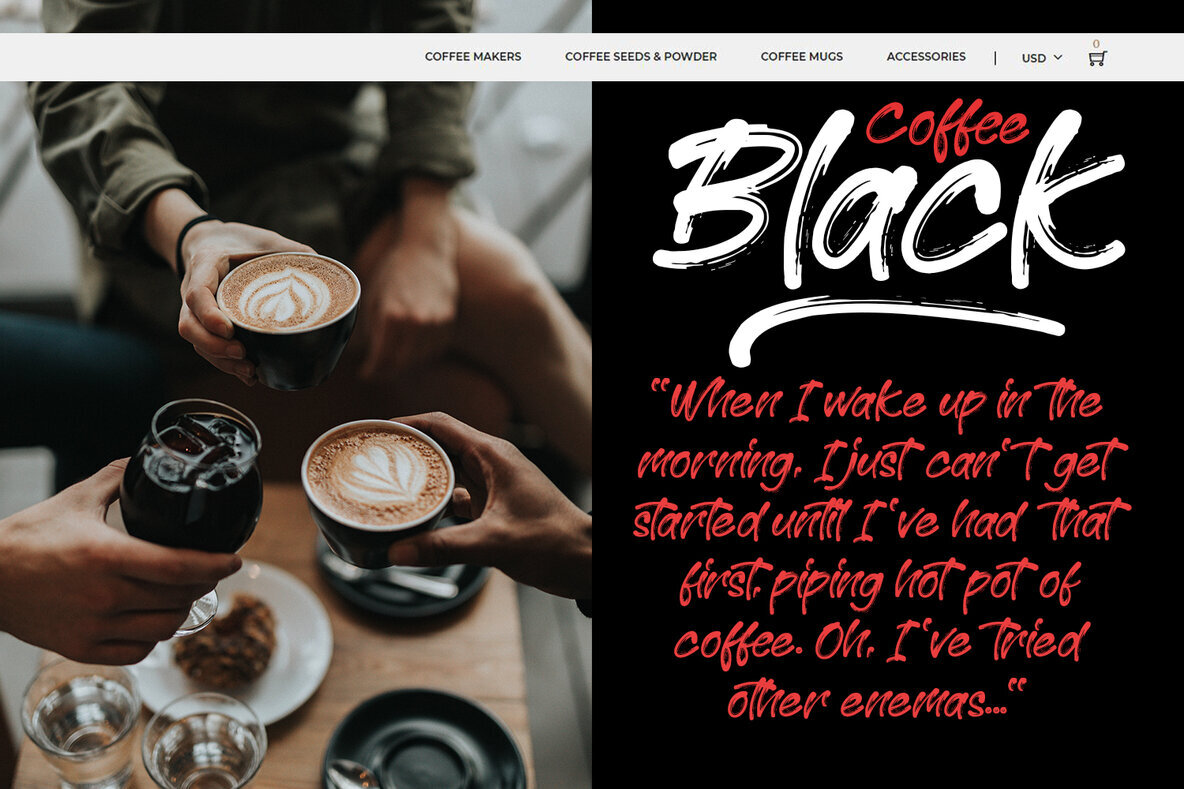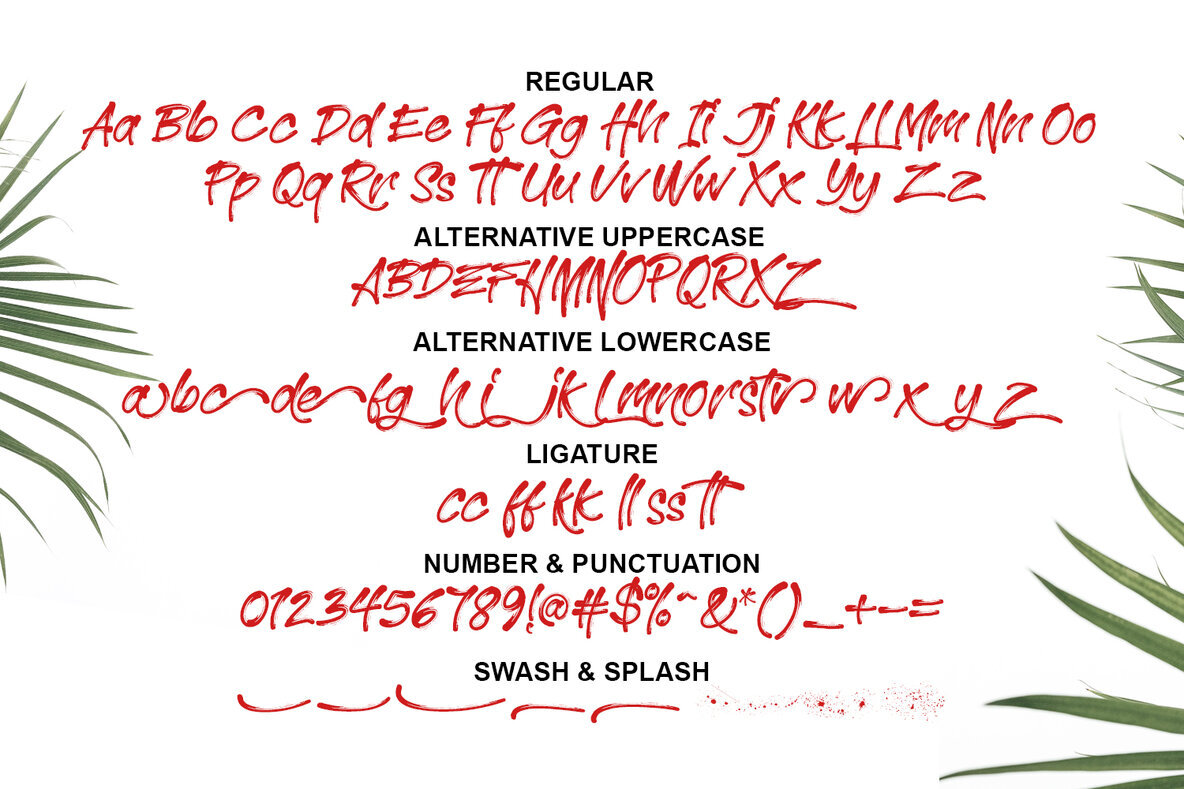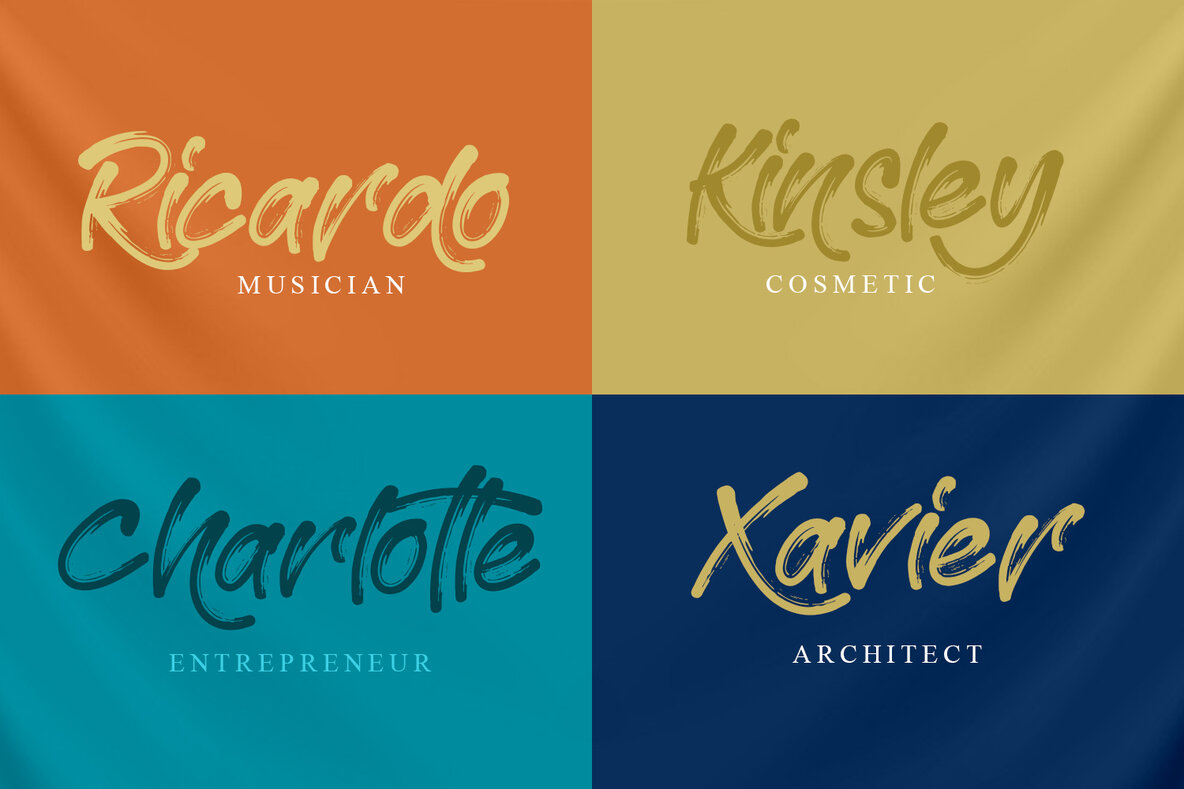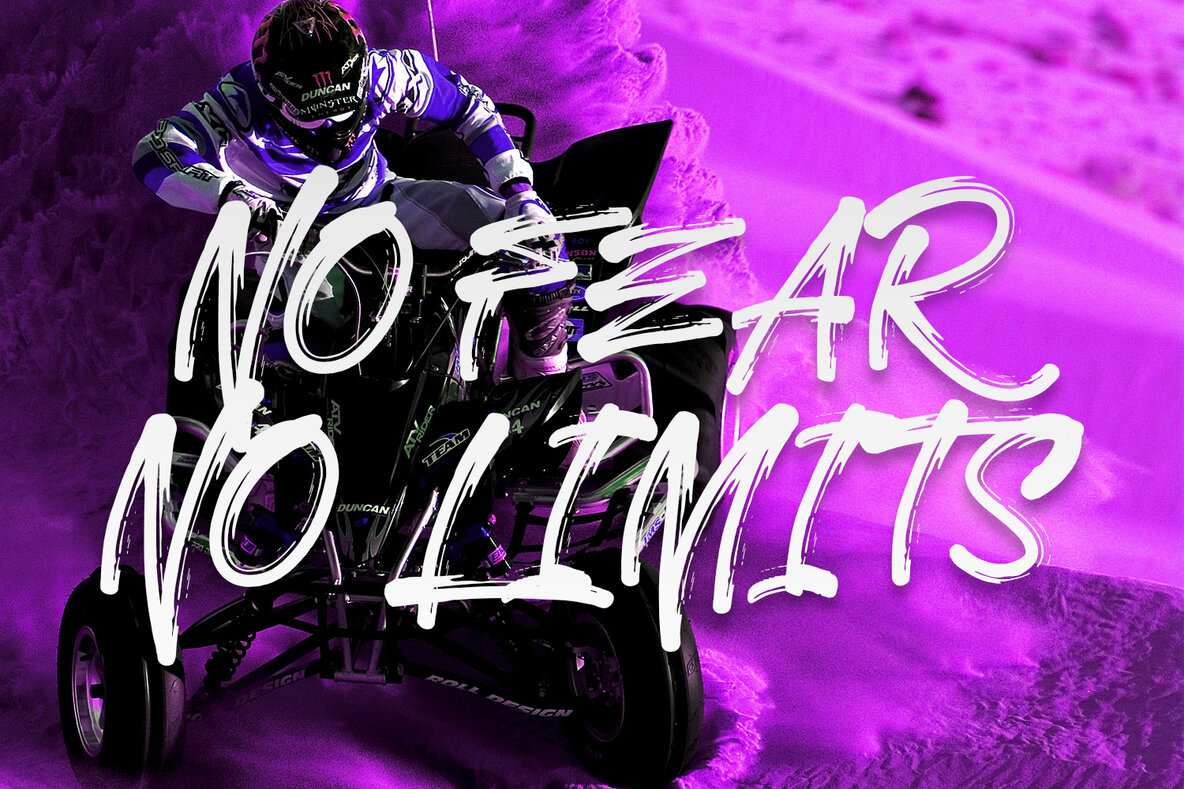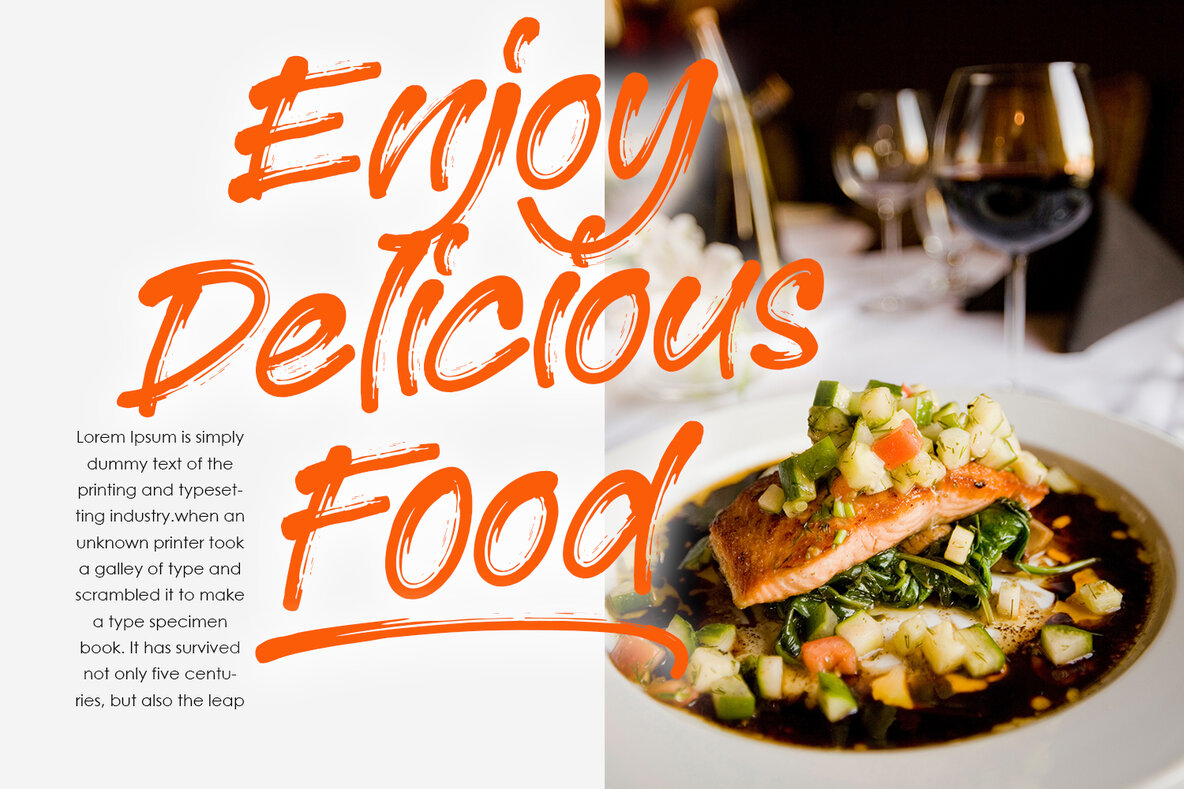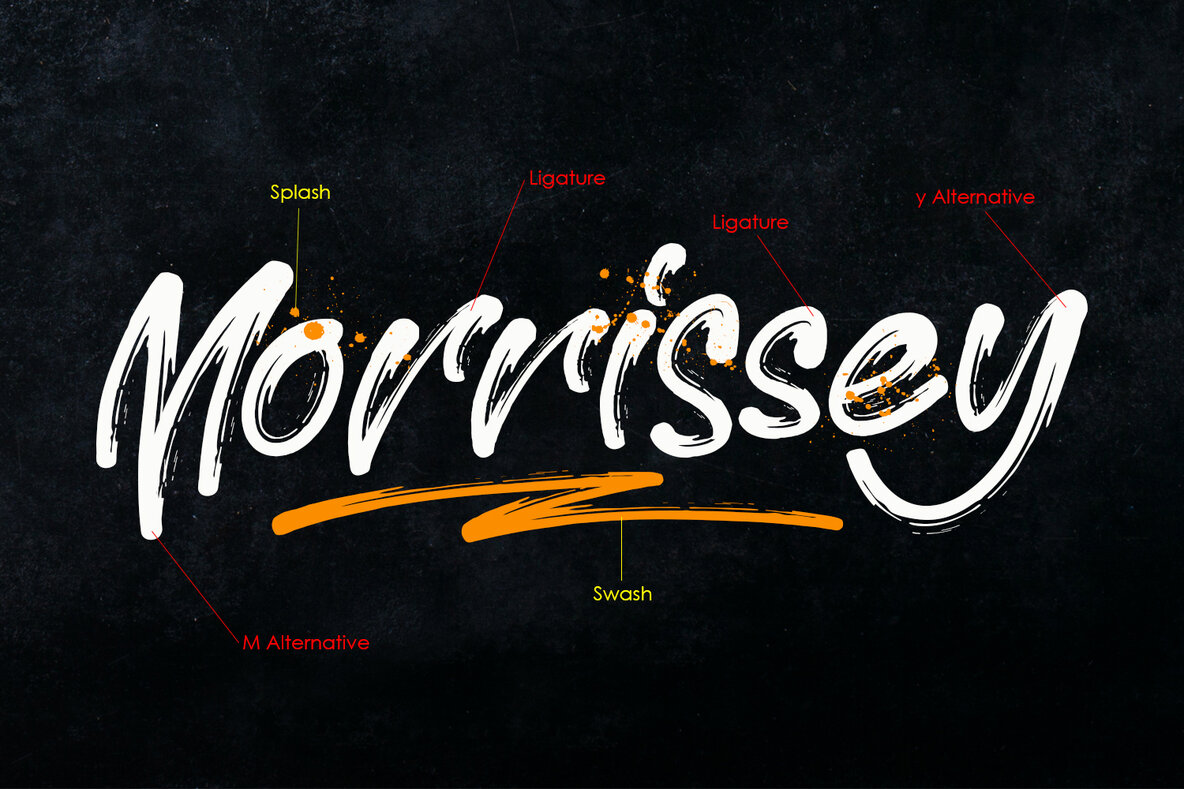
Morrissey Font
Morrissey captures the artistry and spontaneity of handwritten strokes, making it an ideal choice for a wide spectrum of creative projects. Whether you're crafting eye-catching poster designs, distinctive book covers, or memorable merchandise, Morrissey lends a personal touch that stands out. This versatile font bridges the gap between visual impact and warmth, suiting fashion campaigns, professional newsletters, and comprehensive branding efforts. Its flowing brush style adapts beautifully to advertising, magazine layouts, and greeting cards, providing a creative flair to every piece.Morrissey: A Handwritten Brush Font for Impactful Designs